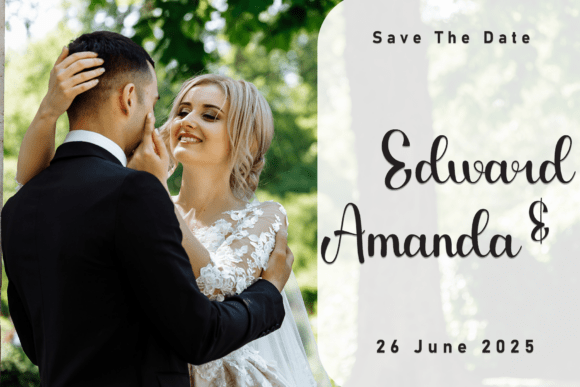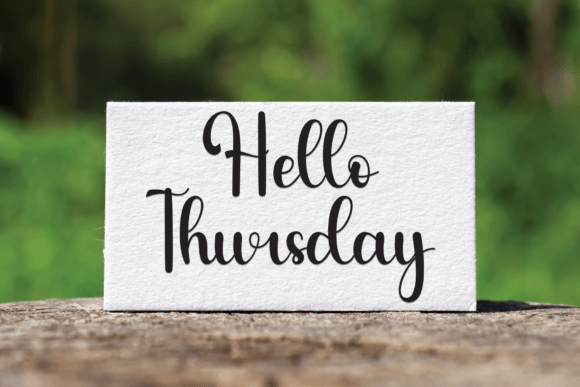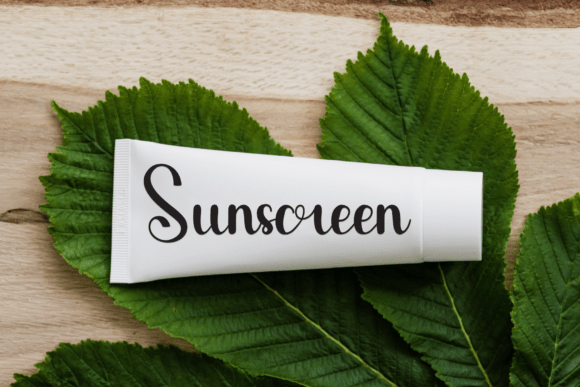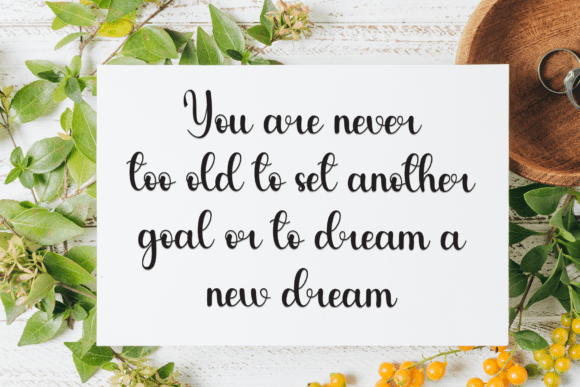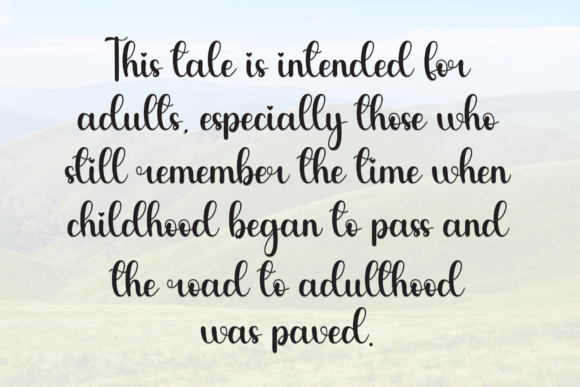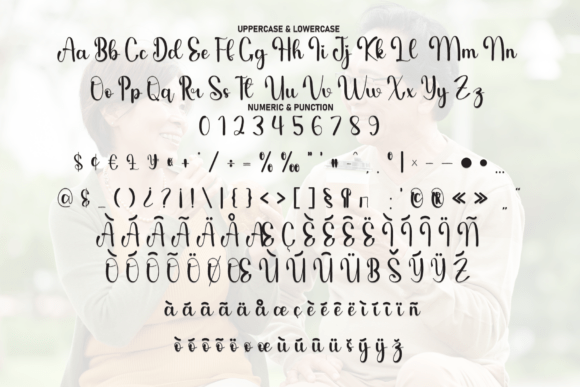
The Delight Font: Elevating Your Designs with Elegance and Charm
Have you ever been in the middle of a design project, and suddenly, you’re stuck on finding the perfect font? I recall a recent experience where I was working on a wedding invitation design, and my client requested a font that exuded elegance, freshness, and a touch of whimsy. After scouring through numerous font libraries, I stumbled upon the Delight font, and it instantly became the perfect fit. In this article, I’ll share my journey with the Delight font, its features, and how to make the most of it in your designs.
A Personal Review: What I Love About Delight Font
The Delight font has quickly become one of my go-to typefaces for various design projects. Here’s what I love about it:
- ✨ Fresh and elegant feel: The Delight font radiates a sense of renewal, making it perfect for seasonal designs, invitations, and branding projects.
- ✅ Delicate charm: Its flowing strokes and gentle curves add a soft, personal touch to any project.
- ✨ Versatility: Delight font works well in various design contexts, from digital to print.
While the Delight font is an excellent choice for many projects, there are a few minor quirks to consider:
- ⚠️ Limited use in very small font sizes: Due to its elegant and cursive nature, the Delight font may not be the best choice for very small font sizes or body text.
- 🤔 Limited availability of weights: The Delight font might not have an extensive range of weights, which could limit its use in certain design scenarios.
The Delight font was created with the intention of evoking a sense of renewal and elegance. Its designer aimed to craft a typeface that would add a soft, personal touch to various design projects. While the actual designer’s story might be unknown, it’s clear that their goal was to create a font that would inspire creativity and uplift designs.
| What is the Delight font best suited for? | The Delight font is ideal for invitations, branding, seasonal designs, and any project that requires a touch of elegance and charm. |
| Can I use the Delight font in digital and print designs? | Yes, the Delight font works well in both digital and print designs, making it a versatile choice for various projects. |
In conclusion, the Delight font is an excellent choice for designers, crafters, and creative hobbyists looking to add a touch of elegance and charm to their projects. With its fresh feel, delicate charm, and versatility, it’s no wonder that this font has become a favorite among designers. By understanding its features, quirks, and uses, you can unlock the full potential of the Delight font and elevate your designs to new heights.